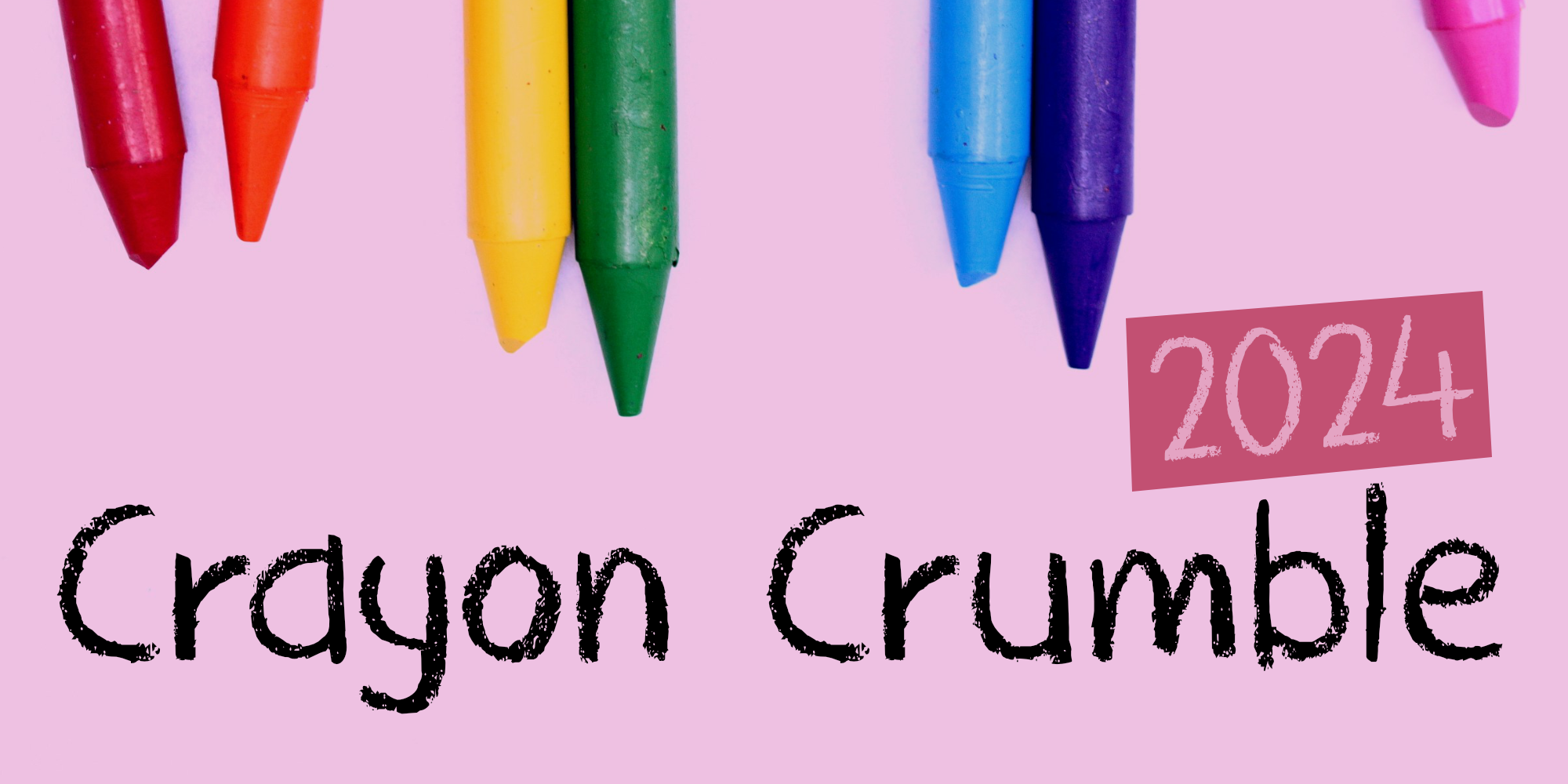
Crayon Crumble 2024 By Comic, Kids July 20, 2025 An update and a remake of my 2011 bestseller. It now comes with extensive language support and all the trimmings. Myfonts Fontspring Font Bros Fonthaus Monotype YWFT